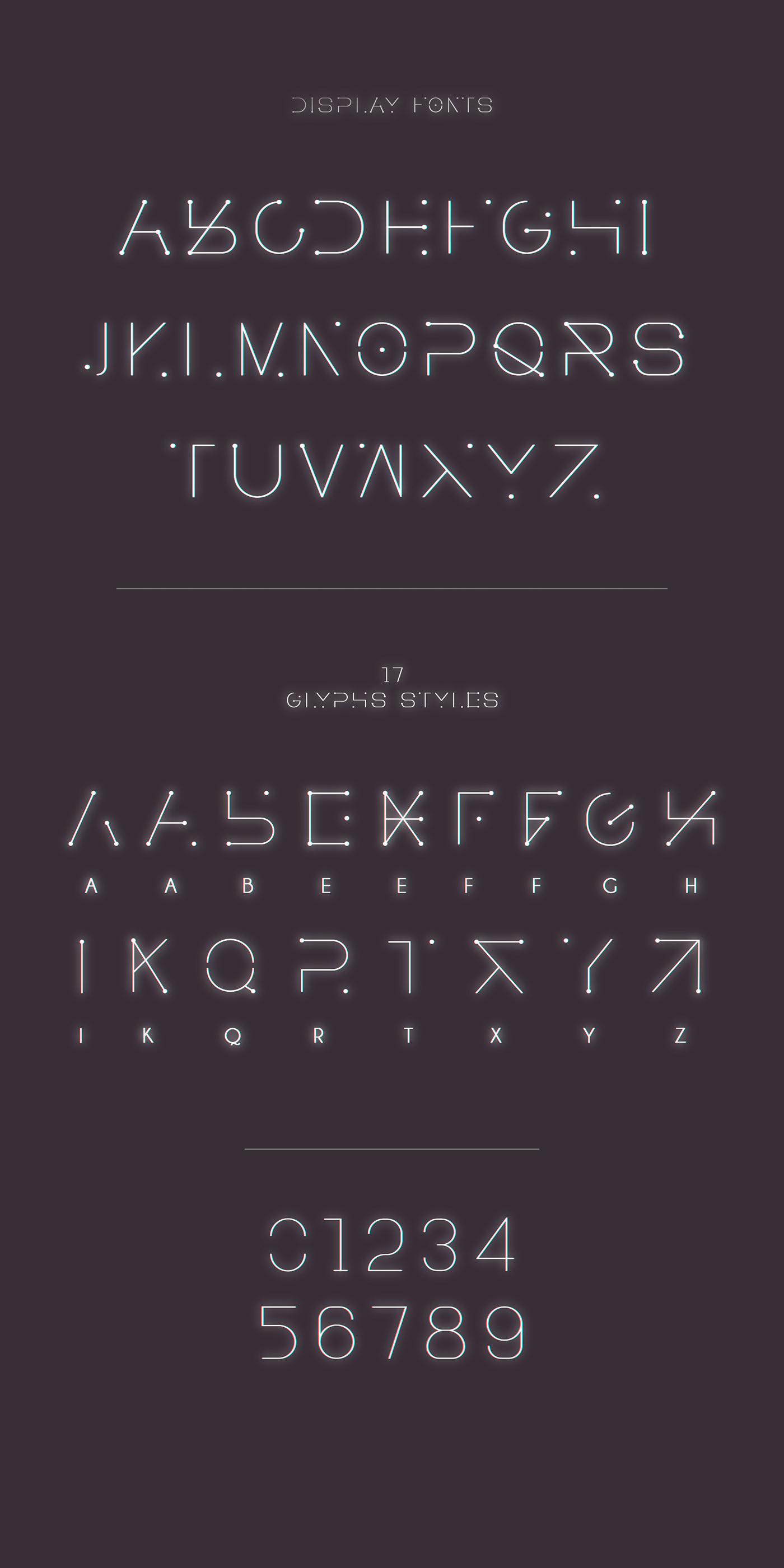
JUD is a new free futuristic display font that was created by Chokun Choinw. This font is ultra minimal featuring thin lines, dots & white space to create a unique display font. It also features many alternate characters for a more customized look.
JUD is great for headlines, gaming themes, poster designs, futuristic & tech related branding projects and much more.